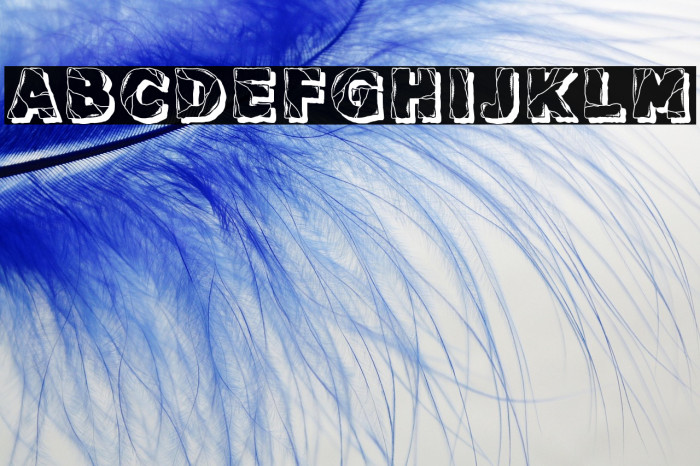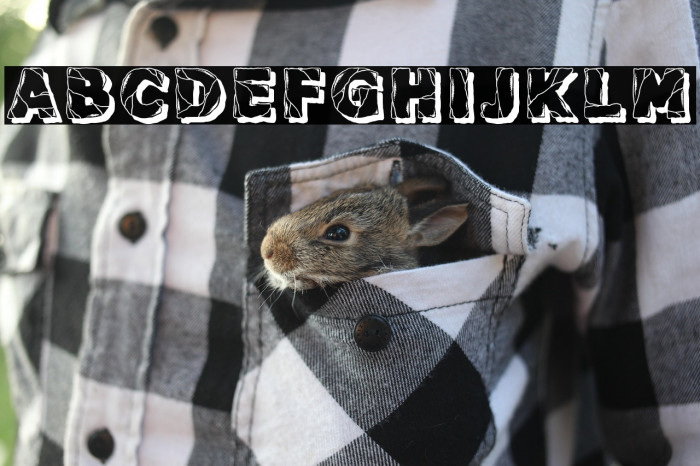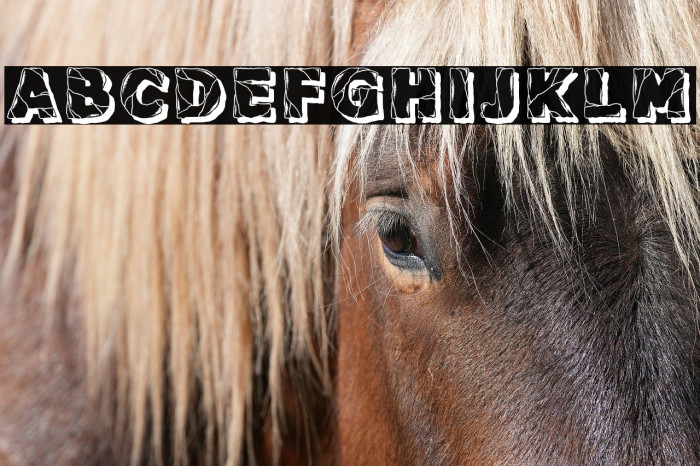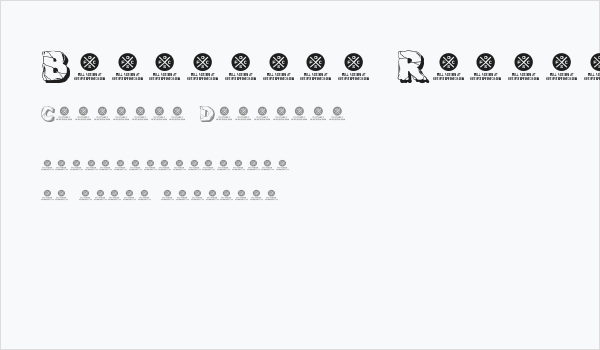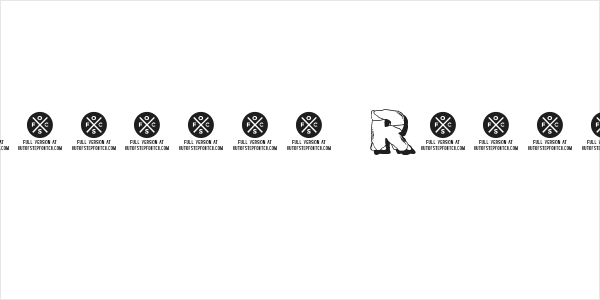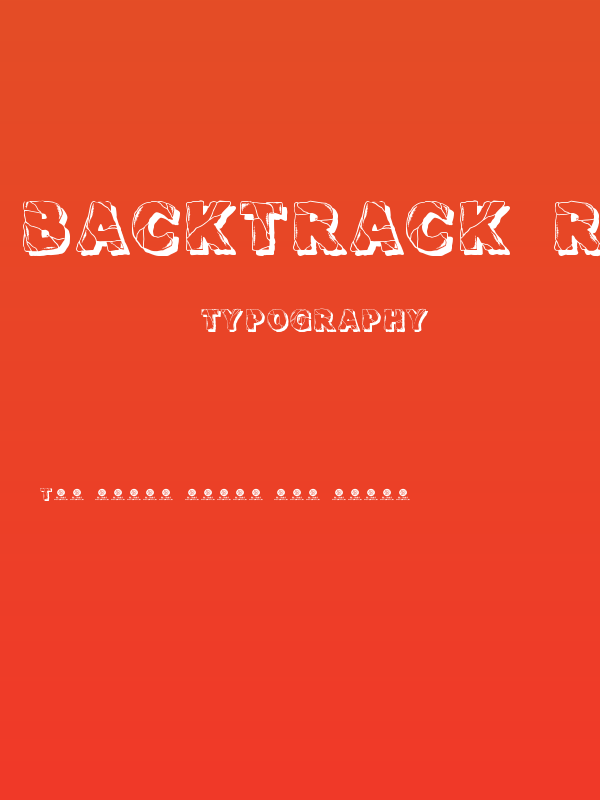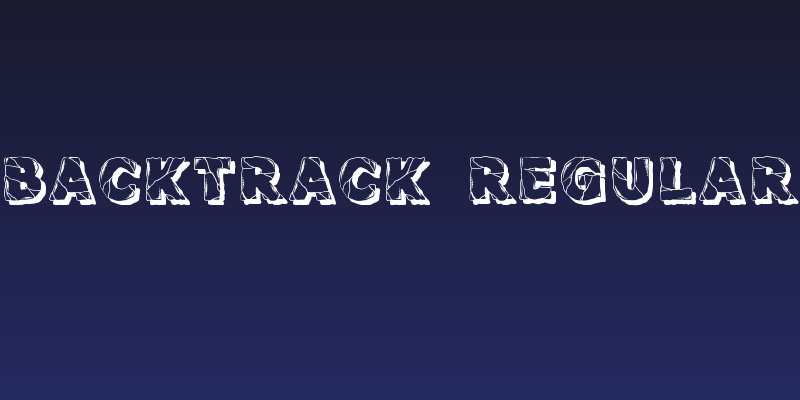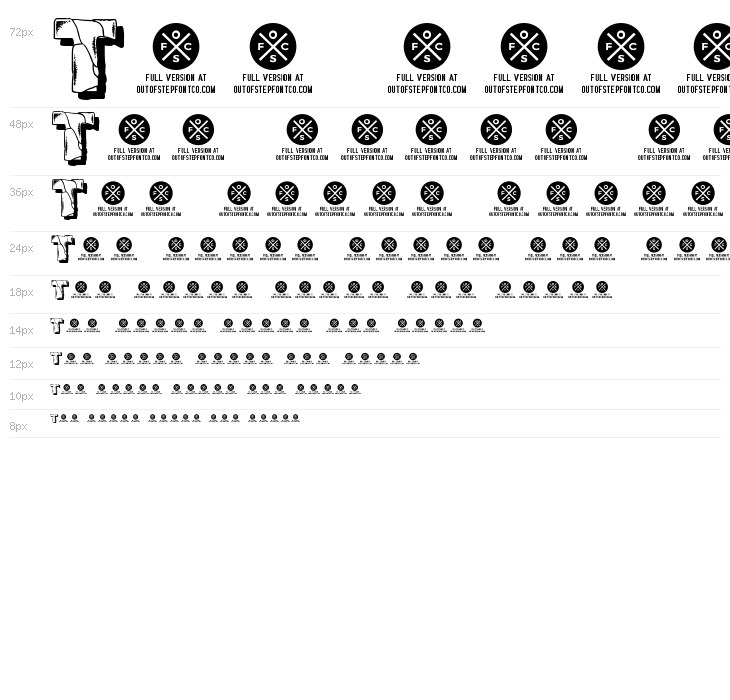
Backtrack Regular Font
Backtrack Regular Description
This font features a bold and dynamic style with a three-dimensional effect, giving each character a sense of depth and texture. The letters are outlined with a thick, uneven stroke that adds a rugged, hand-drawn appearance. The interior of each character is filled with a pattern that resembles a sketch or doodle, enhancing its artistic and playful nature. This font is highly decorative, making it ideal for projects that require a strong visual impact. The uppercase letters are consistent in height and width, maintaining a uniform look across the alphabet.
| Proposed Projects | Ideal for posters, album covers, creative branding, and any design needing a bold, artistic touch. |